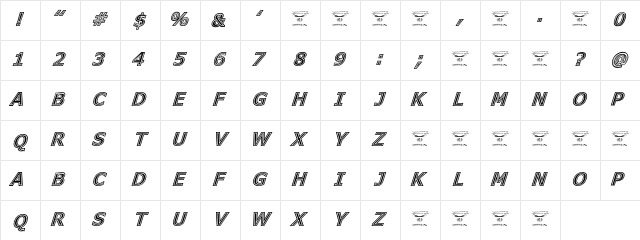
Genesee St is a composed and adaptable typeface that performs quietly and consistently across a wide range of design contexts. The slanted form adds forward momentum and visual energy.
Pro Tip: Use Genesee St for emphasis, pull quotes, and subheadings where its slanted energy can add rhythm to the layout.